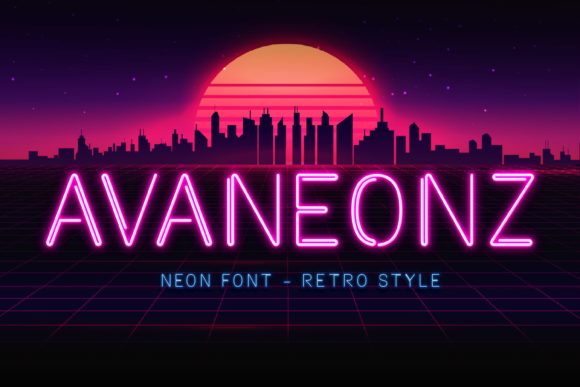
Journey into the realm of radiant typography with Avaneonz, a display font that electrifies your designs with its futuristic charm. Crafted by the skilled artisans at almarkhatype, this font family embodies the essence of neon signs, capturing their captivating allure and propelling your creative visions to new heights.
With Avaneonz, ordinary words are transformed into luminous masterpieces, radiating an otherworldly glow that commands attention. Its striking simplicity empowers you to craft designs that resonate with a modern, cutting-edge aesthetic, leaving an indelible mark on your audience.
Embrace the captivating aura of Avaneonz and harness its power to ignite your creativity. Transport your viewers to a realm of vibrant expression, where every letter dances with energy and every word pulsates with life. Elevate your designs to new stratospheres of brilliance and leave them mesmerized by the sheer audacity of your creations.